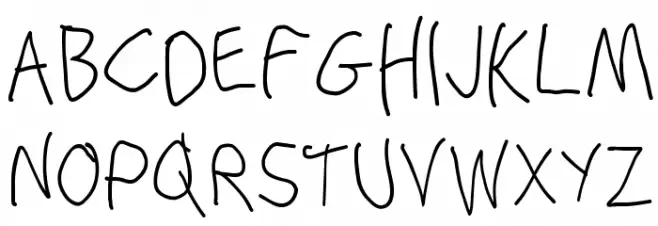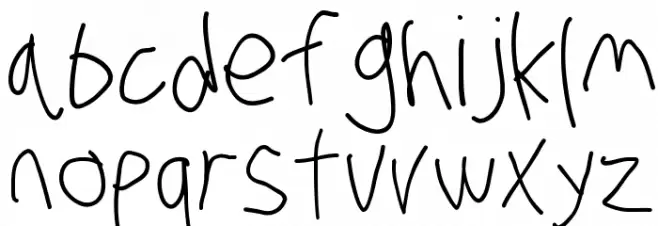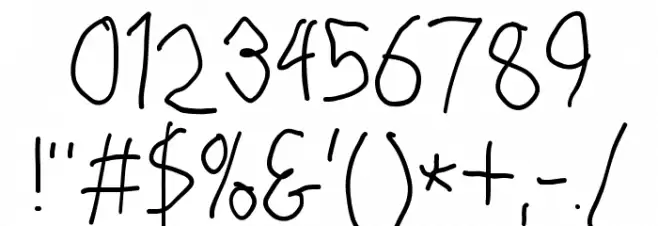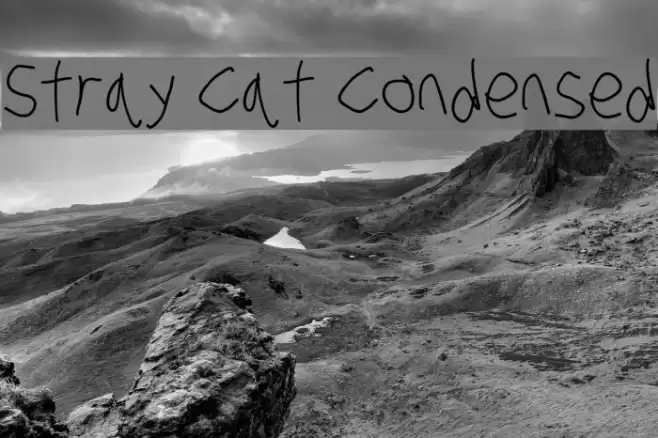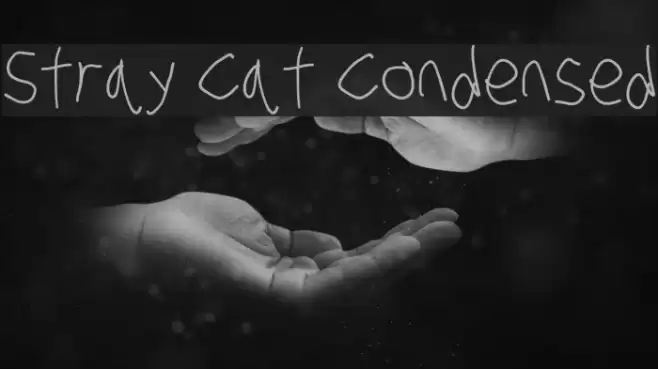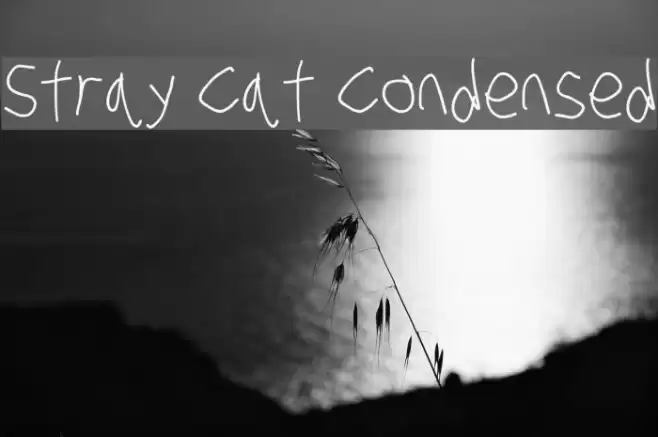
Stray Cat Condensed
This font features a playful and casual handwritten style, characterized by its uneven strokes and informal appearance. The letters are slightly slanted, adding a dynamic and spontaneous feel. The uppercase and lowercase letters maintain a consistent style, with rounded edges and varying stroke widths that give it a lively and approachable look. The numbers and special characters follow the same whimsical design, making it suitable for projects that require a personal touch.
A playful, handwritten font with a casual and dynamic style.
- Proposed Projects: Ideal for greeting cards, children's books, personal blogs, and creative branding projects.
- Width: Condensed
- Overall Style: Casual
- Use Case: Headlines, Informal text, Creative projects